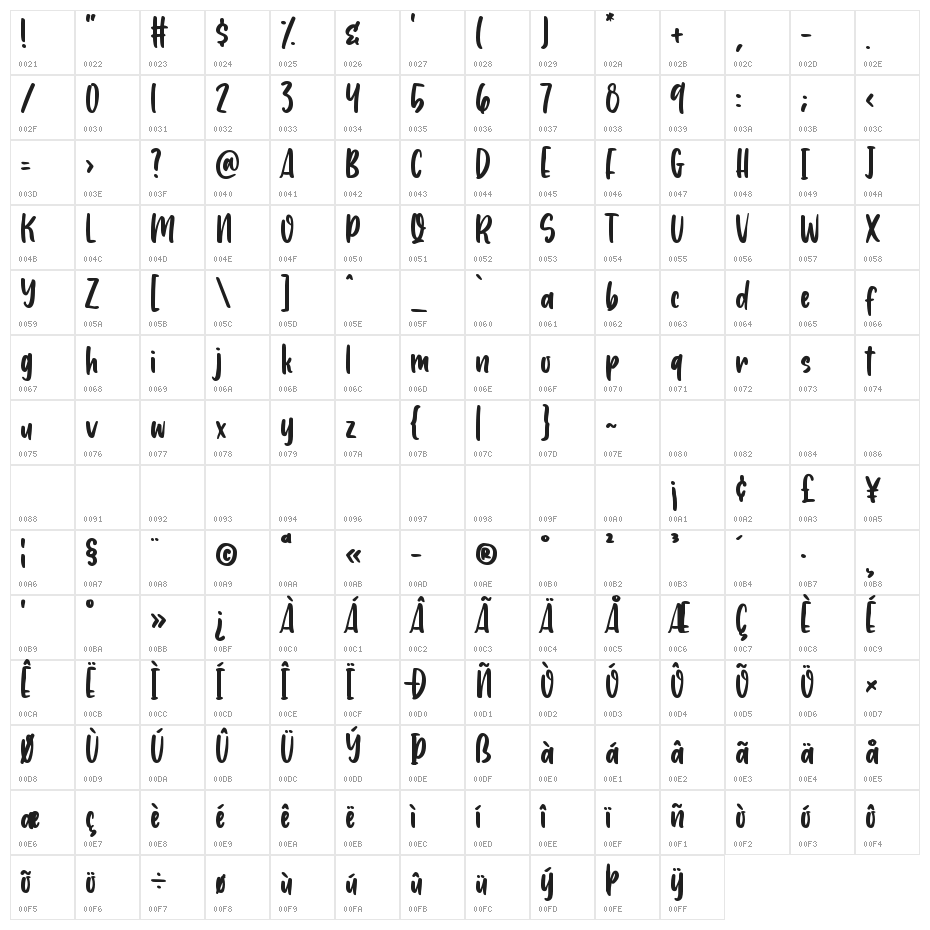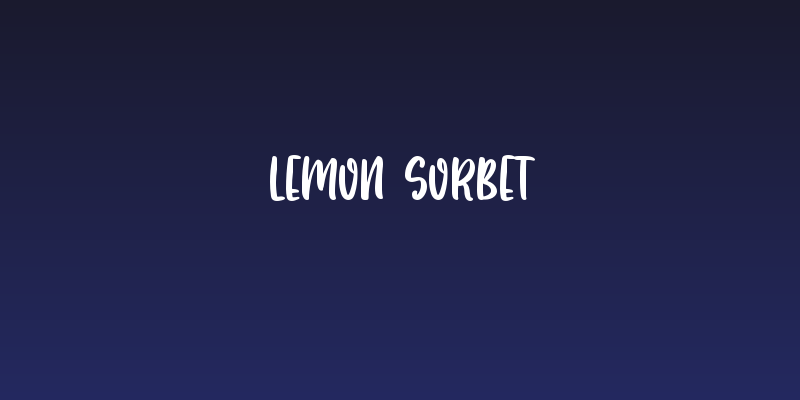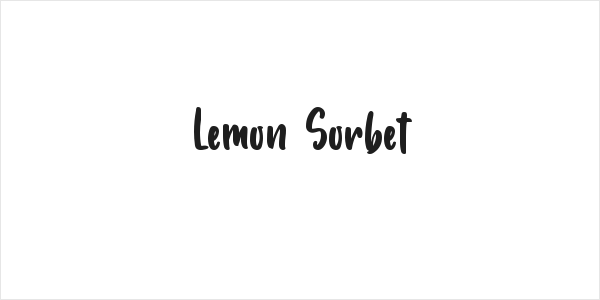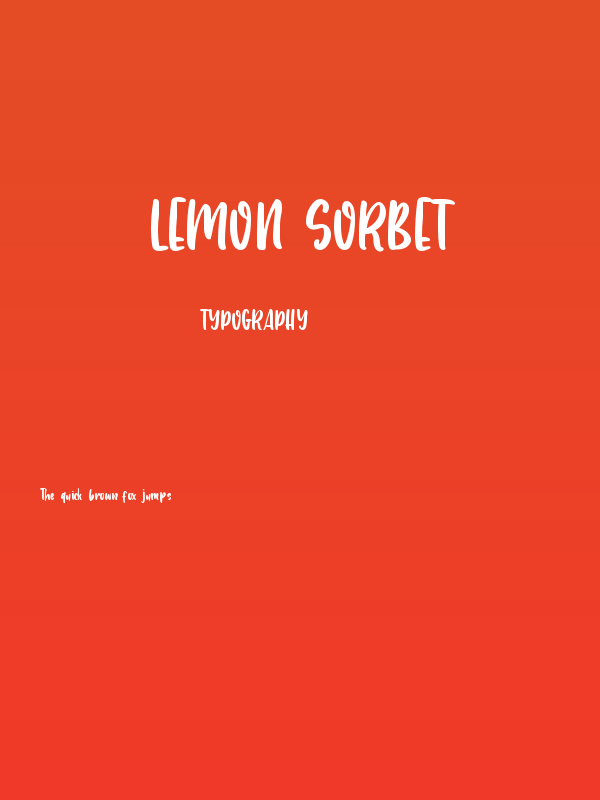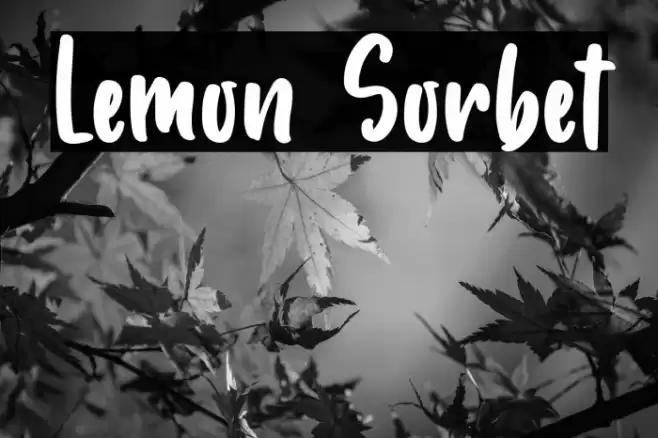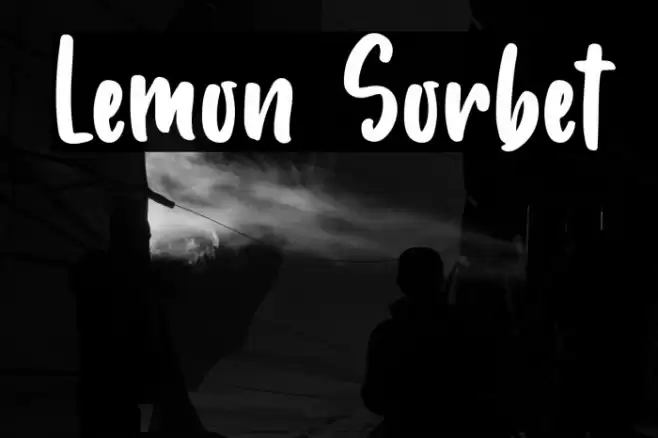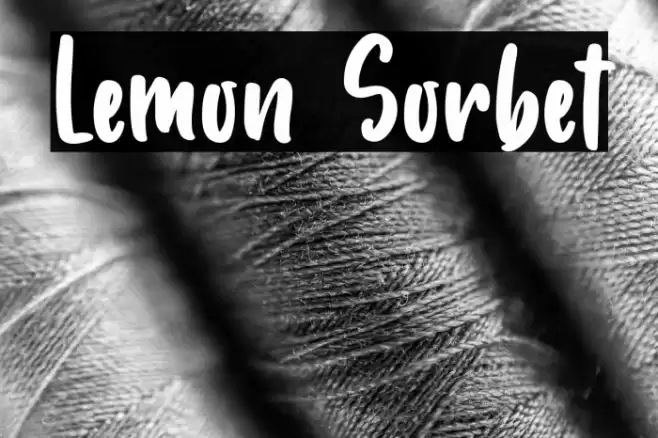
Lemon Sorbet Font
This font exudes a playful and energetic vibe, characterized by its bold and slightly irregular strokes. The letters have a hand-drawn quality, with a casual and friendly appearance. The uppercase and lowercase letters maintain a consistent style, with rounded edges and a slight tilt, adding to the informal feel. The numerals and special characters are equally expressive, ensuring a cohesive look across all text elements. This font is perfect for projects that require a touch of whimsy and creativity, making it ideal for children's books, playful branding, or casual invitations.
| Proposed Projects | Ideal for children's books, playful branding, casual invitations, and creative projects. |